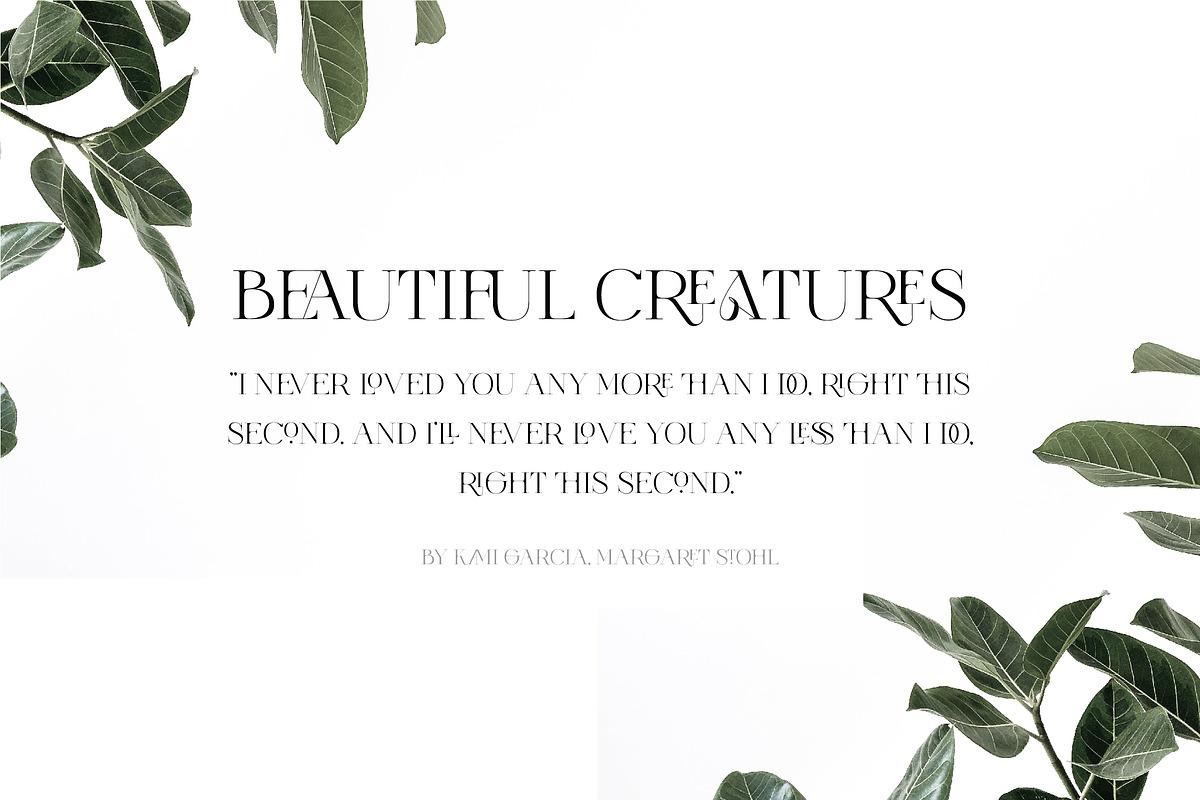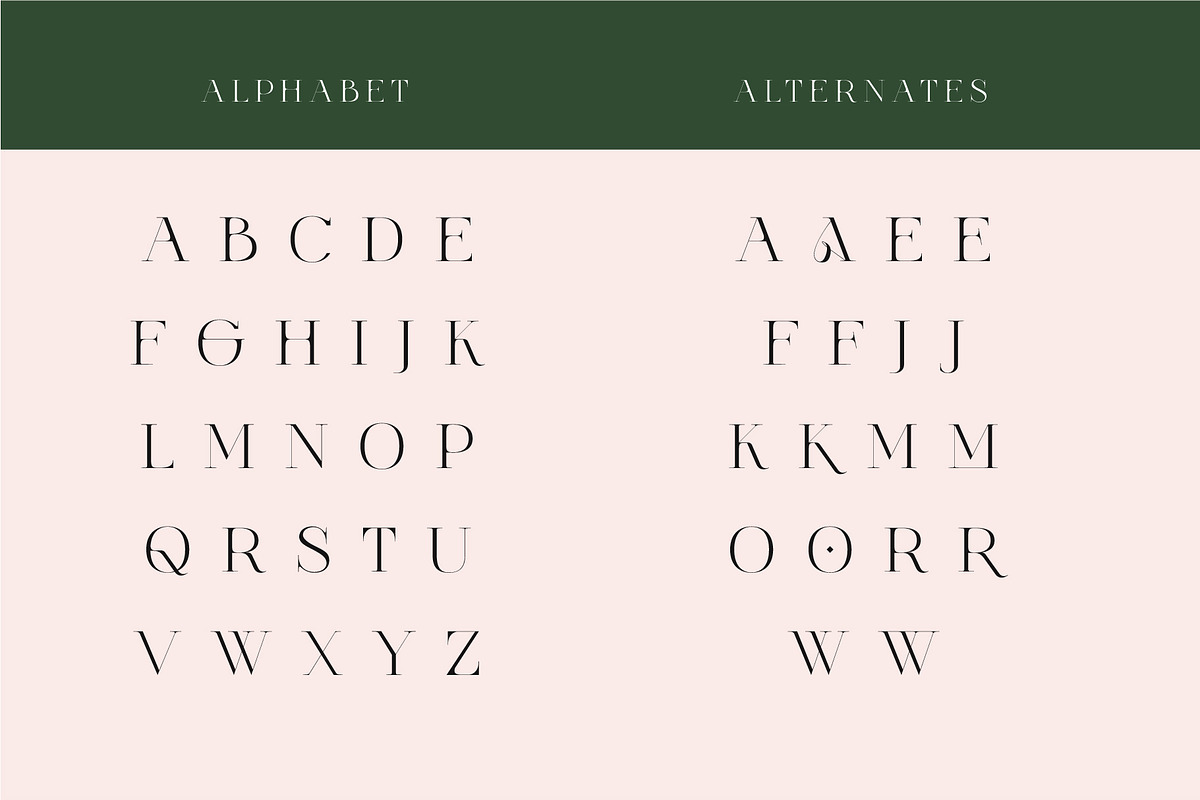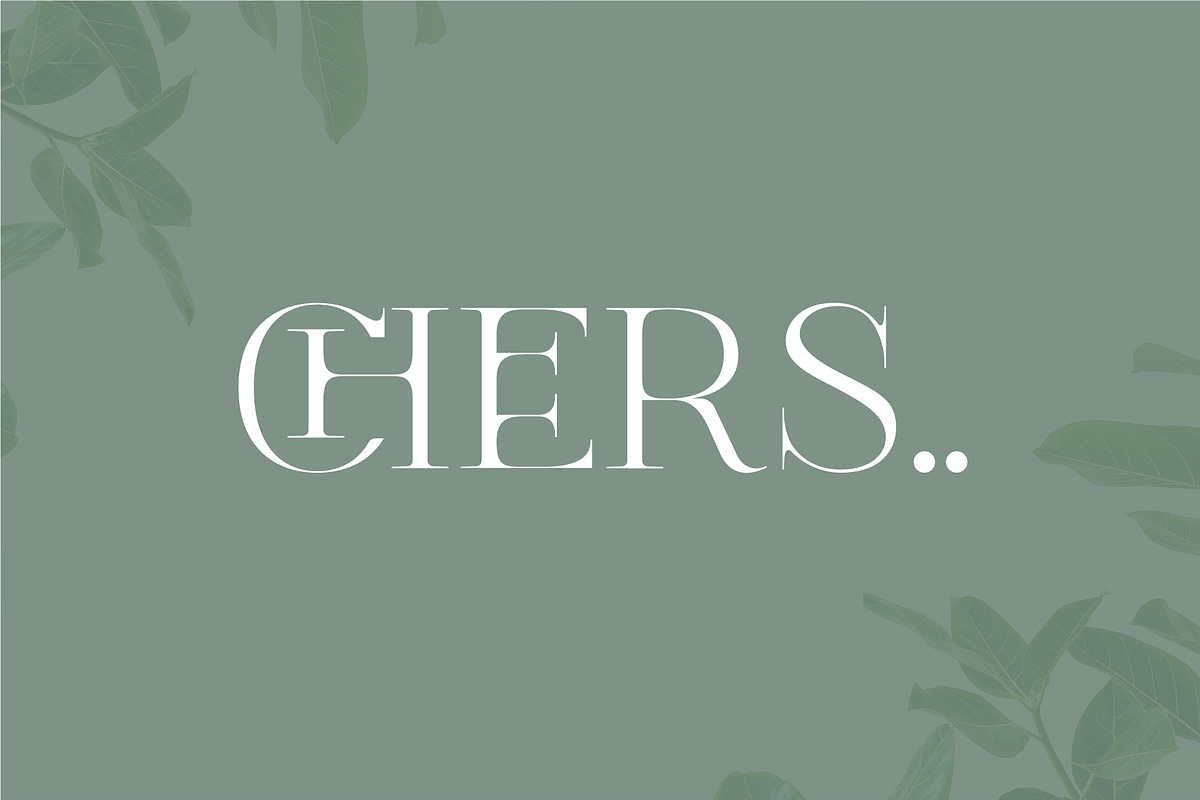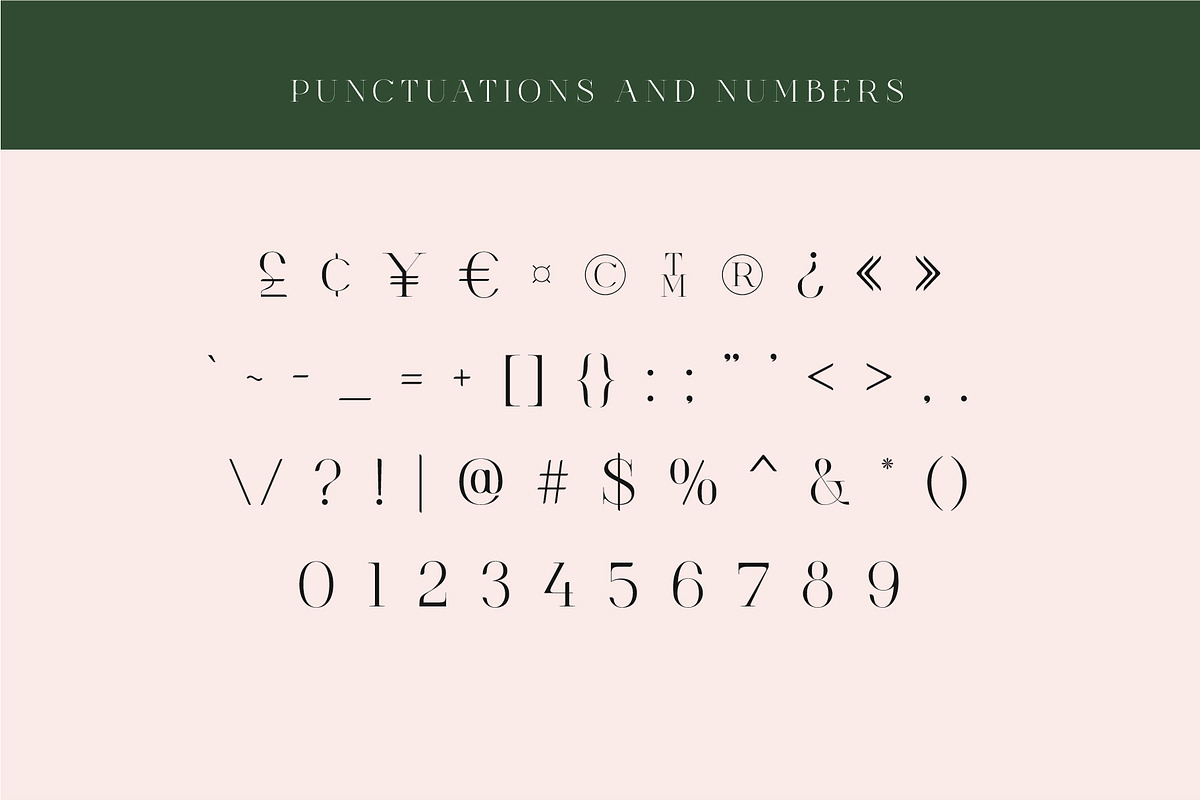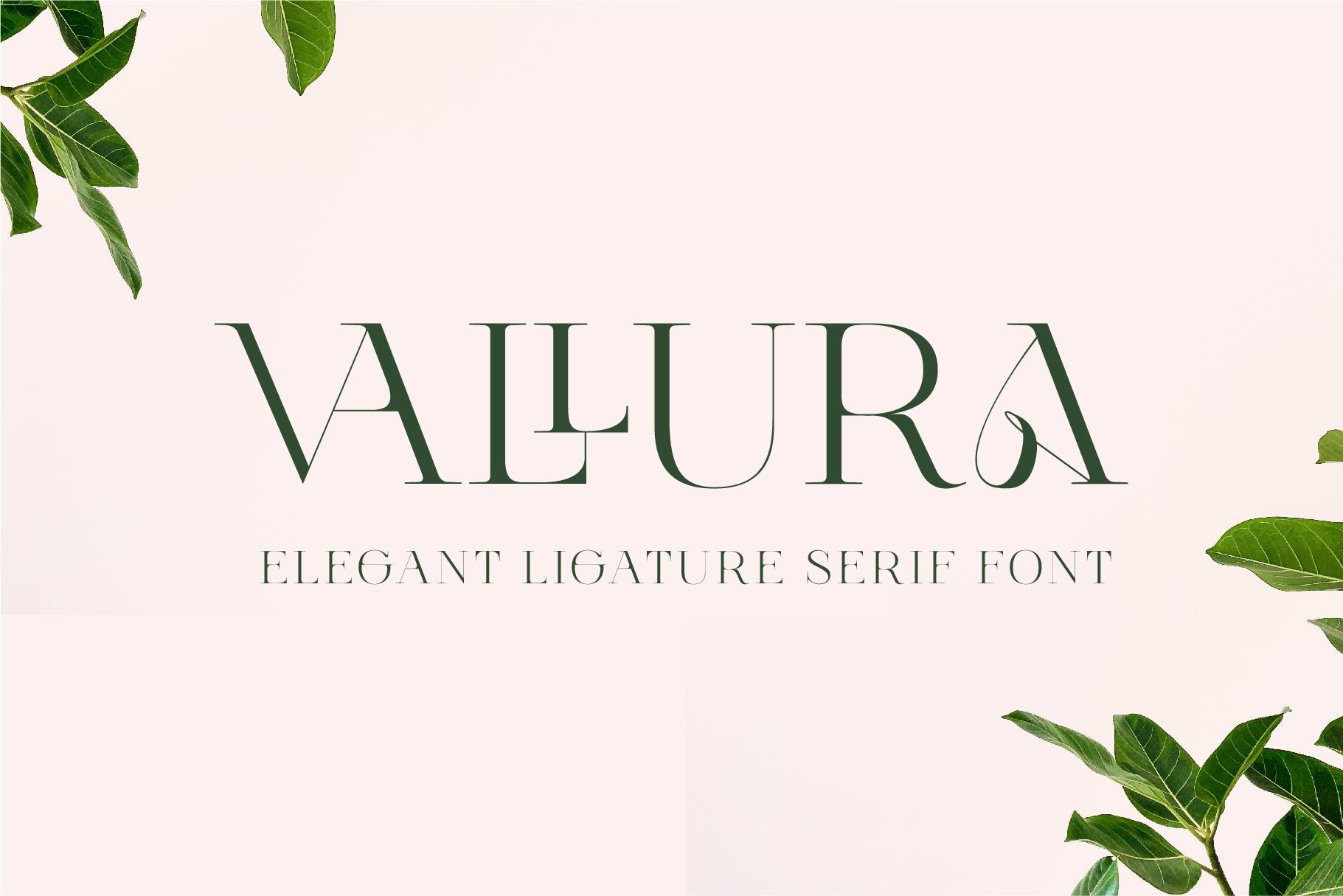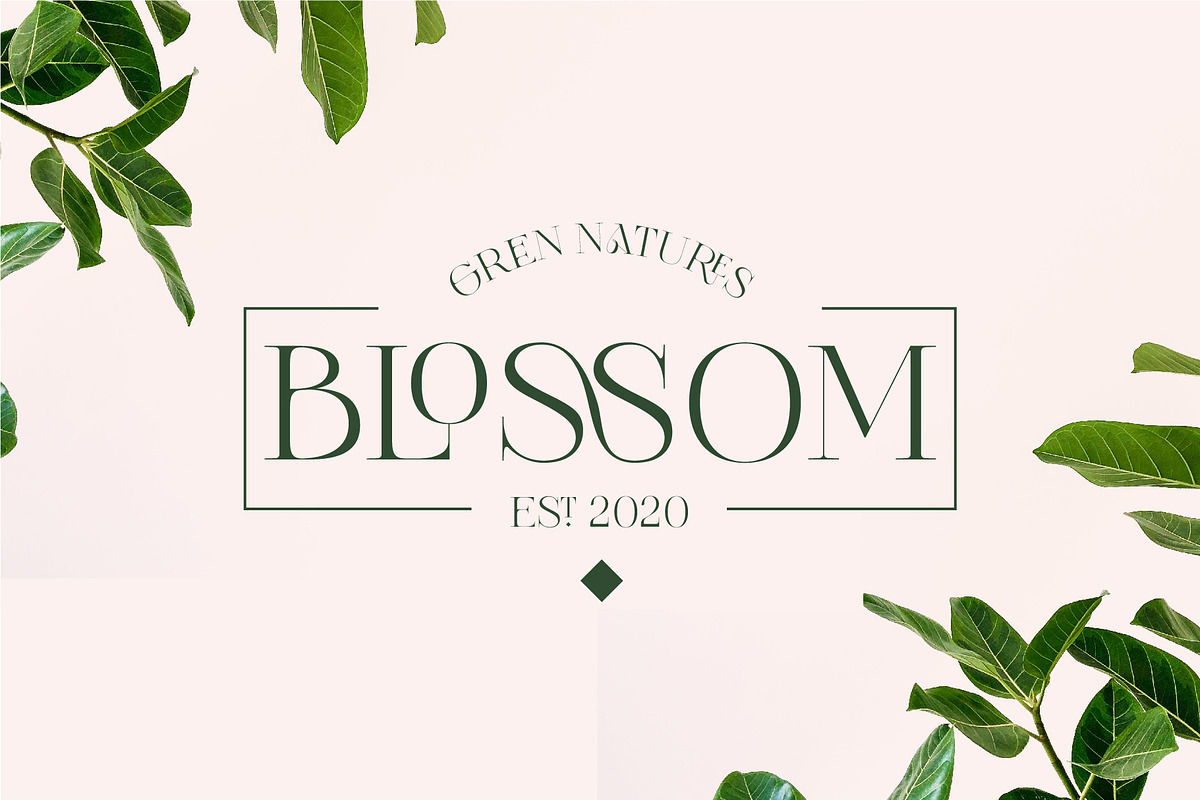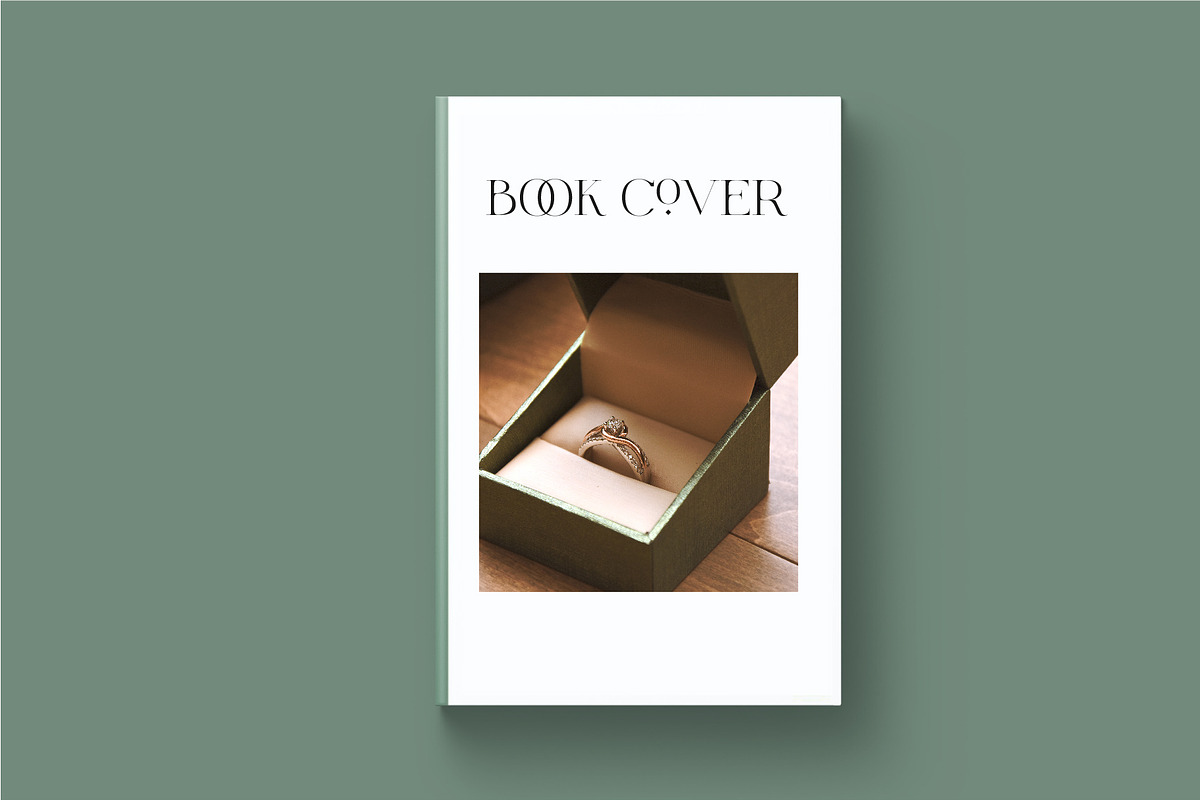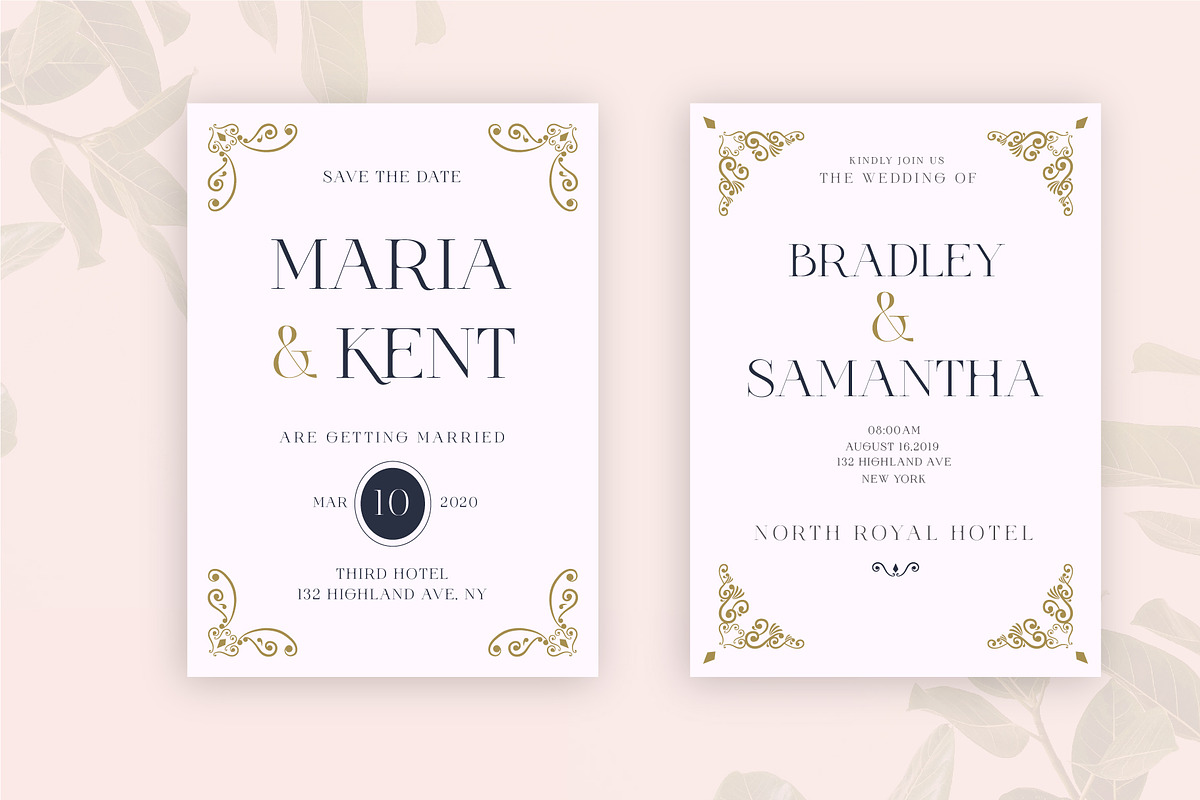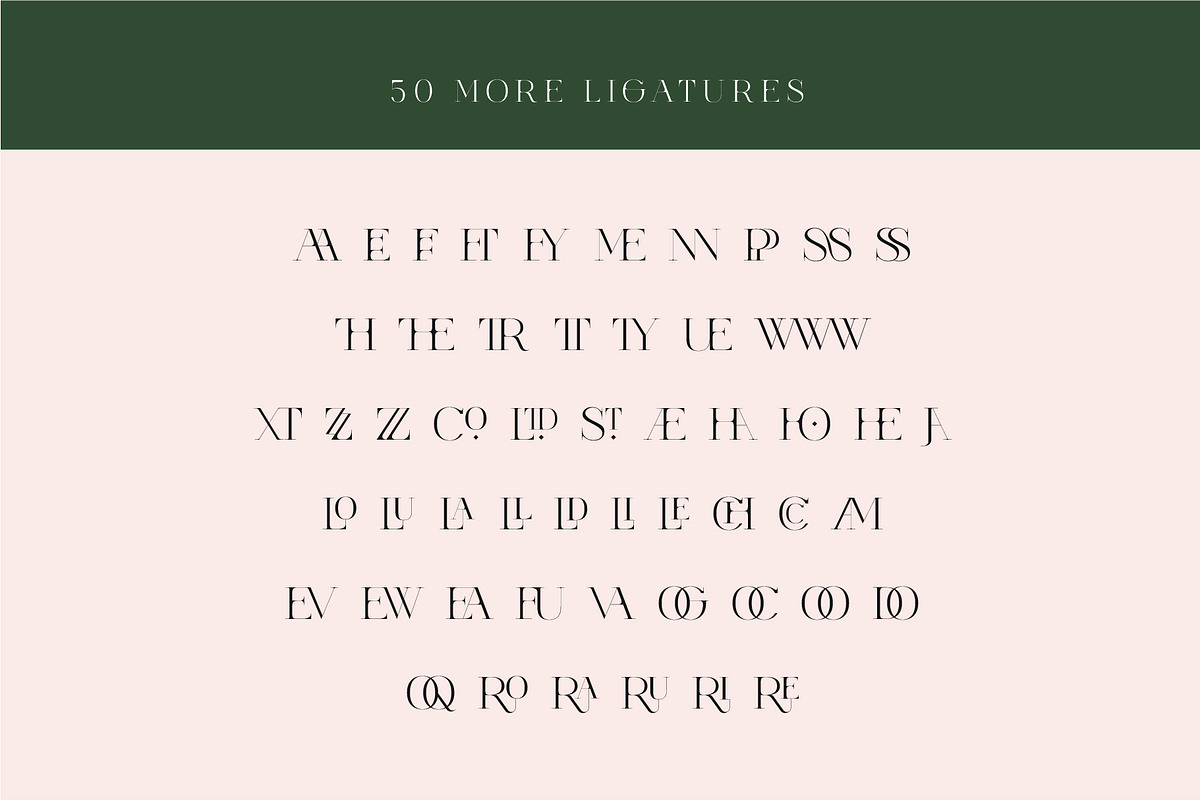
Vallura - Serif Display Font
Vallura is a stylish modern calligraphy font with ligature-rich Serif. Very contrast size for display font. Minimalist character that allowing you to easily edit the designs. It is perfect for branding, wedding invites and cards, and maybe for some project.
- 50 more special ligatures